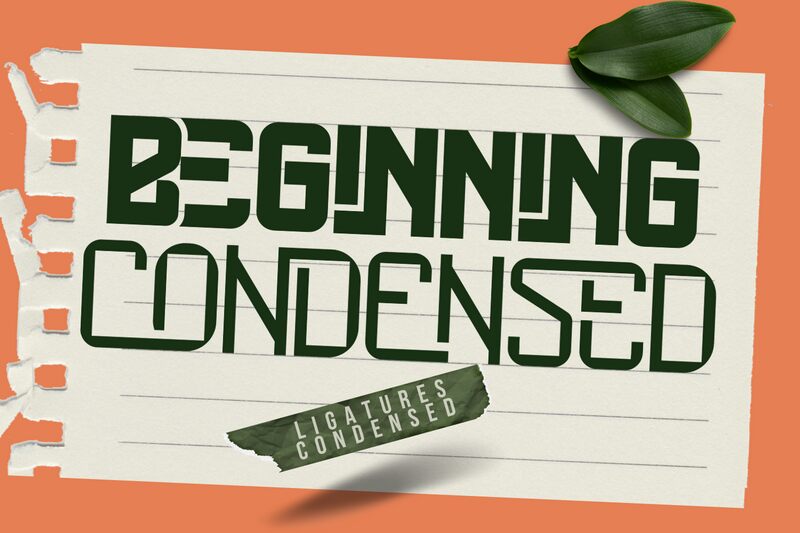
Beginning Condensed font from 177Studio is a bold sans serif with a blocky and geometric structure that showcases modernity. Its industrial and utilitarian-style letters leave a strong presence perfect for visually striking designs.
This free condensed font can be used in titles, posters, advertising projects, magazines, branding and packing designs, banners, and signage. Routers of unique visual solutions can also use it in logos or even webpage graphics.